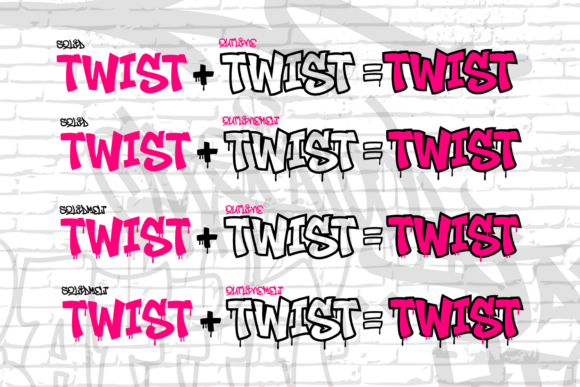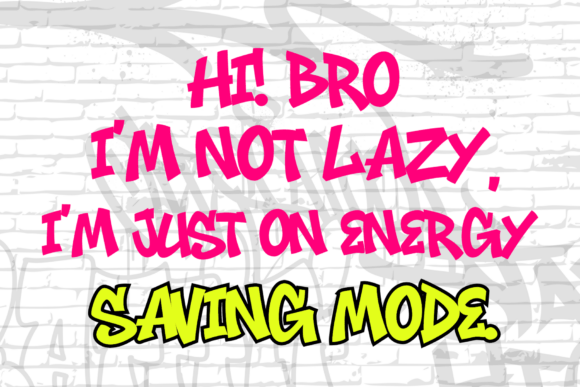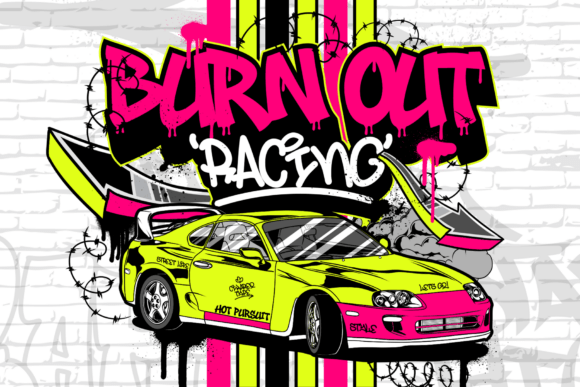
Introduction to Noctra Drip Font
Embrace the audacious spirit of the urban landscape with Noctra Drip.
This graffiti-infused, display font paints every page with the bold, rebellious essence of street-art It’s awash in four daring styles – Solid, Solid Melt, Outline, and Outline Melt, providing a versatile palette for your divergent design needs.